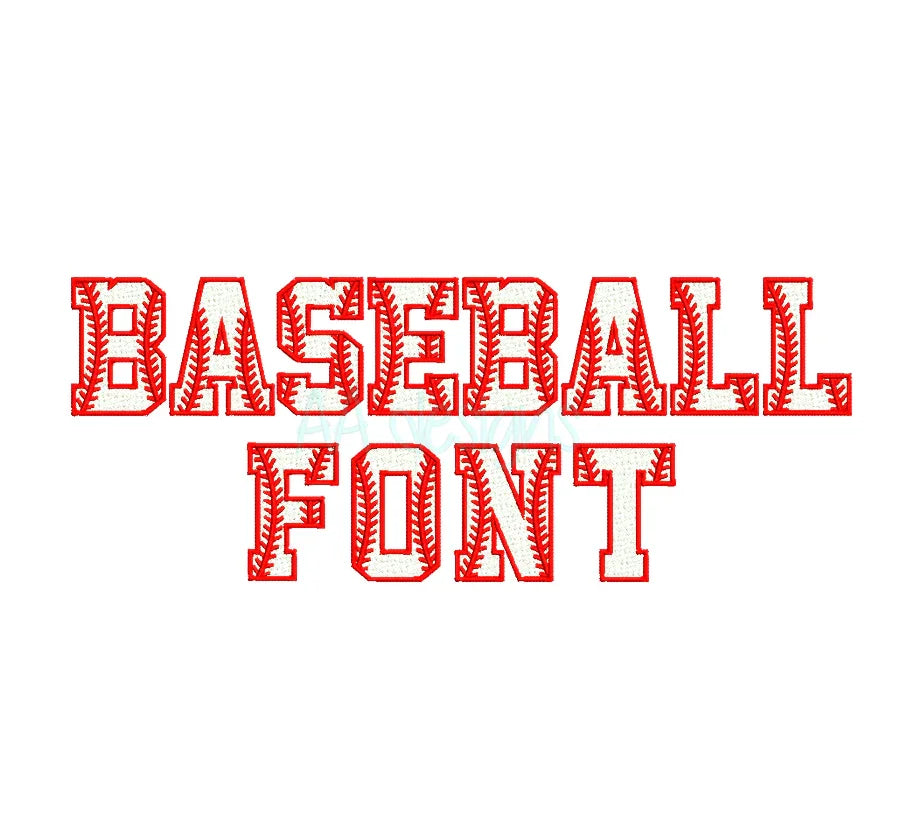
How to Choose the Right Embroidery Font for Your Project
With hundreds of embroidery fonts available, choosing the right one can feel overwhelming. But once you understand a few key principles, picking the perfect font becomes second nature. In this guide, we'll walk you through everything you need to know to choose the right embroidery font for any project.
1. Consider the Project Type
The first step is always to think about what you're embroidering. Different projects call for different font styles:
- Sports jerseys & caps — bold, thick fonts like Varsity 3D Puff or Football Applique
- Baby & kids' clothing — playful, rounded fonts like Sun Baby Applique or Cartoon Applique
- Monograms & personalized gifts — elegant script or serif fonts
- Casual wear & tote bags — versatile sans-serif or retro fonts like Groovy Retro Applique
- Floral & feminine projects — decorative script fonts like Flower Script Font
2. Choose the Right Font Style
Embroidery fonts generally fall into these main categories:
3D Puff Fonts
Use foam under the stitches to create a raised, dimensional effect. Best for caps, hats, and bold statement pieces. Examples from our store:
- Varsity 3D Puff — classic sports style
- Algerian 3D Puff — ornate, vintage feel
- Vital 3D Puff — modern, clean sans-serif
Applique Fonts
Use a fabric layer for bold, colorful lettering with less thread. Ideal for large lettering (2 inches and above) and kids' projects. Examples:
- Wild Applique — adventurous and bold
- Volleyball Applique — sporty and clean
- Fishtail Applique — unique and eye-catching
Fill Stitch Fonts
Traditional embroidery fonts filled with dense stitching. Great for smaller text and professional-looking results. Examples:
- Football Fill Stitch Font — sporty and bold
- Baseball Fill Stitch Font — classic and clean
- Curlz Font — fun and decorative
3. Match Font Size to Your Project
Font size is critical in embroidery — unlike printing, not all fonts stitch well at every size:
- Under 0.5 inch — use simple, clean fonts with thick strokes. Avoid thin serifs or decorative details
- 0.5 – 1 inch — most fill stitch fonts work well at this range
- 1 – 2 inches — ideal range for most embroidery fonts
- 2 inches and above — consider applique fonts to save stitch time and thread
- 3 inches and above on caps — 3D puff fonts shine at this size
4. Think About Stitch Time & Thread Usage
If you're doing production runs or bulk orders, stitch count matters:
- Applique fonts have the lowest stitch count — fastest to stitch
- 3D puff fonts have moderate stitch counts but require foam
- Fill stitch fonts have the highest stitch count — most thread usage
6. Test Before You Commit
Always stitch a test sample before embroidering on your final project:
- Use the same fabric and stabilizer as your final project
- Check letter spacing and overall readability
- Adjust thread tension if needed
- Confirm the size looks right on the actual garment
Quick Reference Guide
| Project Type | Recommended Font Style | Ideal Size |
|---|---|---|
| Caps & hats | 3D Puff | 1.5–3 inches |
| Sports jerseys | Applique or Fill Stitch | 2–4 inches |
| Baby clothing | Applique | 1.5–3 inches |
| Tote bags | Any style | 1–3 inches |
| Small text/labels | Fill Stitch | 0.5–1 inch |